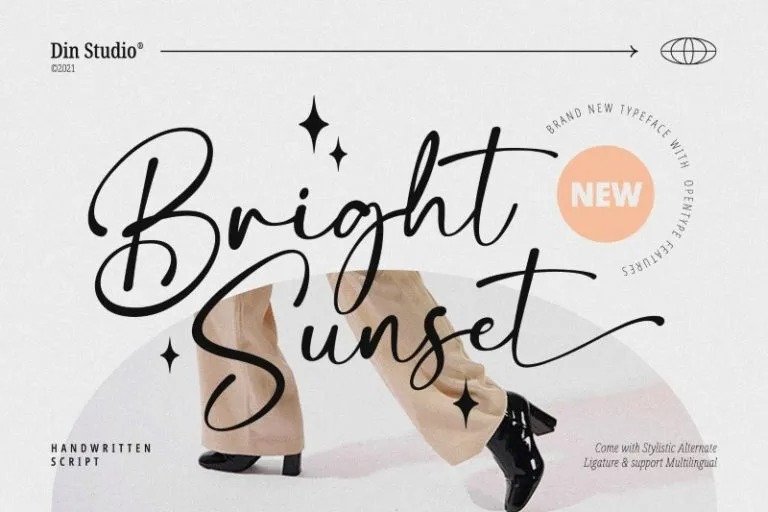
Bright Sunset Font
Bright Sunset Font is signature that appears with style and character. It’s designed and shared by Din Studio. An easy-to-read typeface, with a touch of character, the font is highly adaptable to the modern style, to fit whatever your project needs. Create gorgeous printed quotes, standout packaging, or beautiful t-shirts!